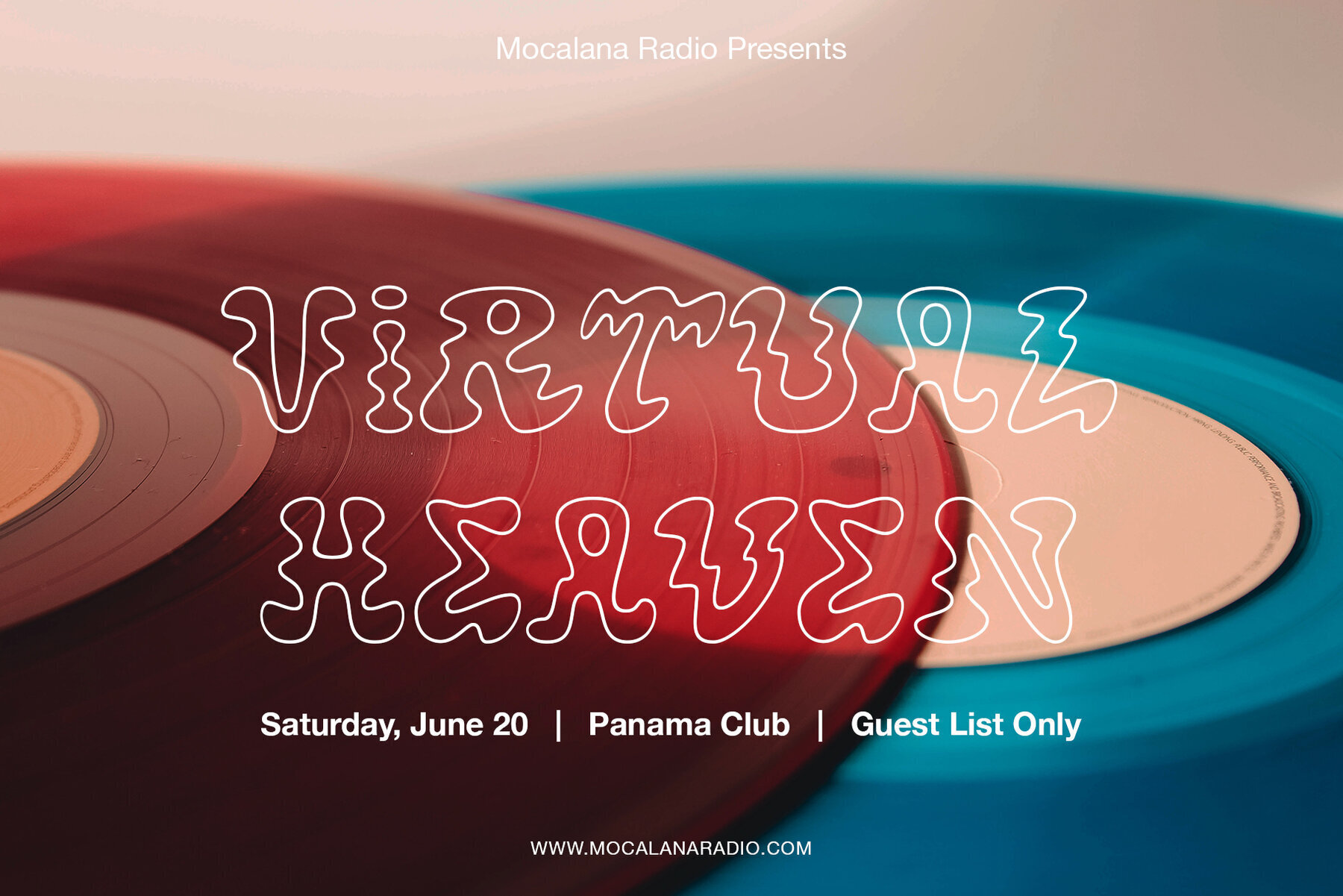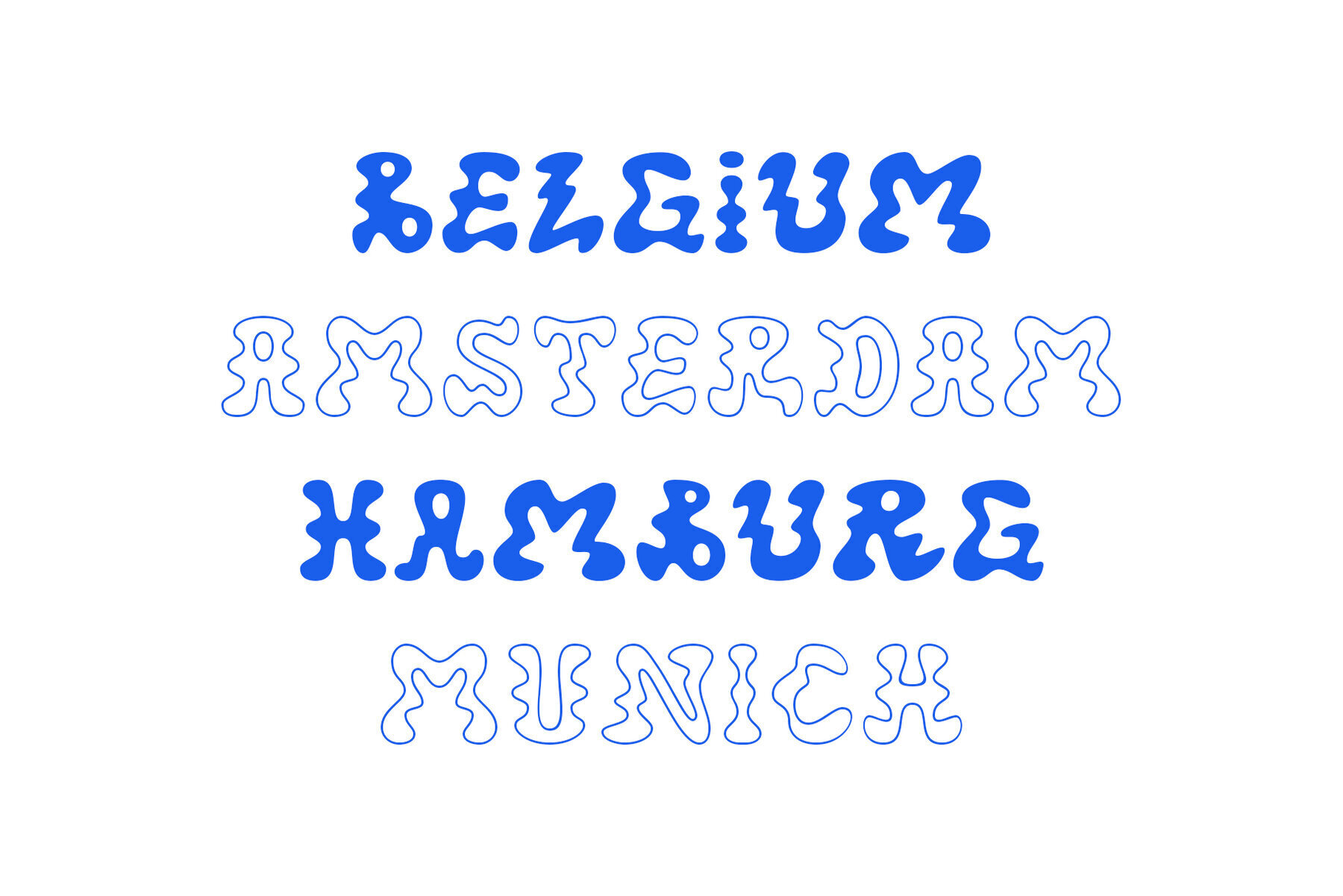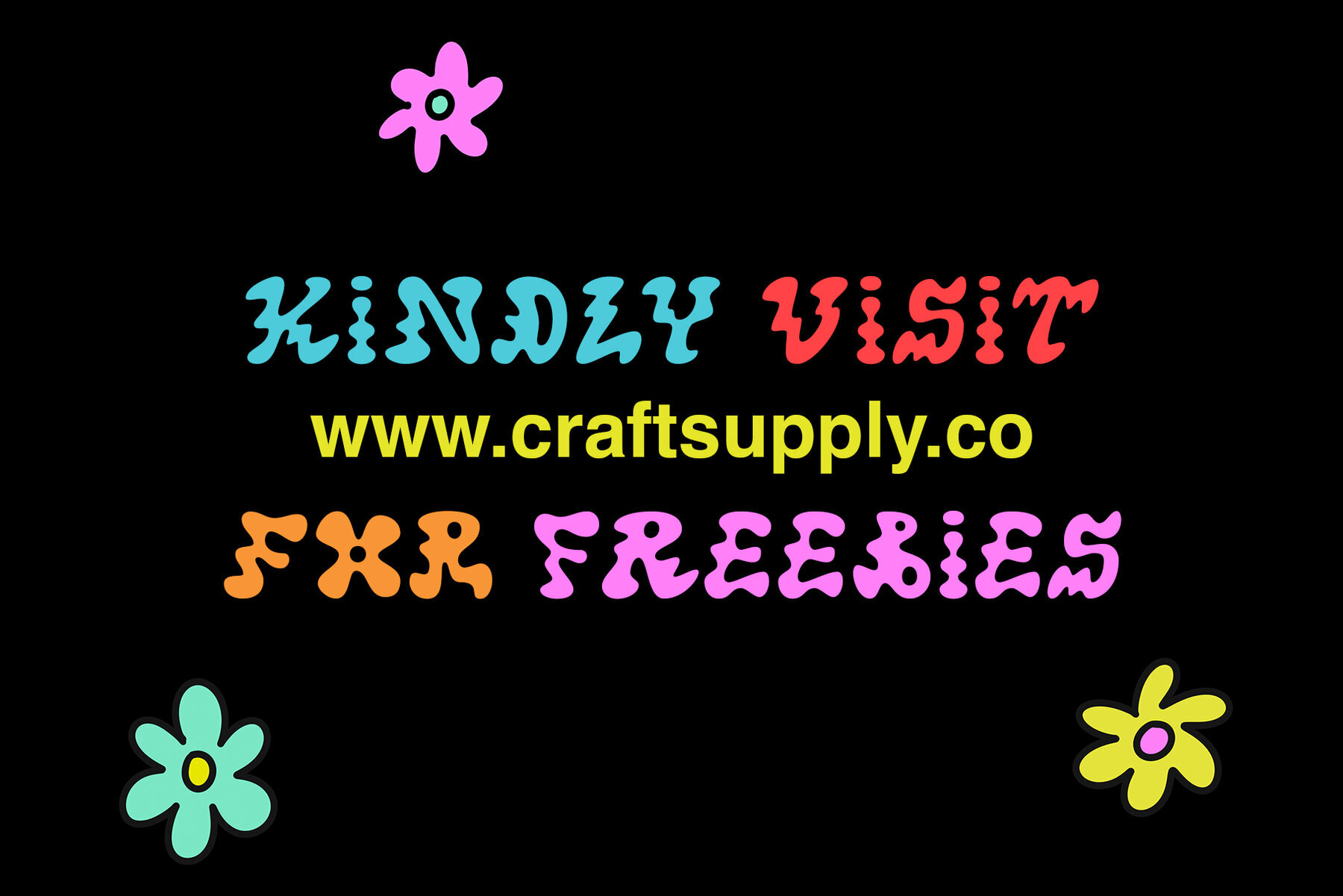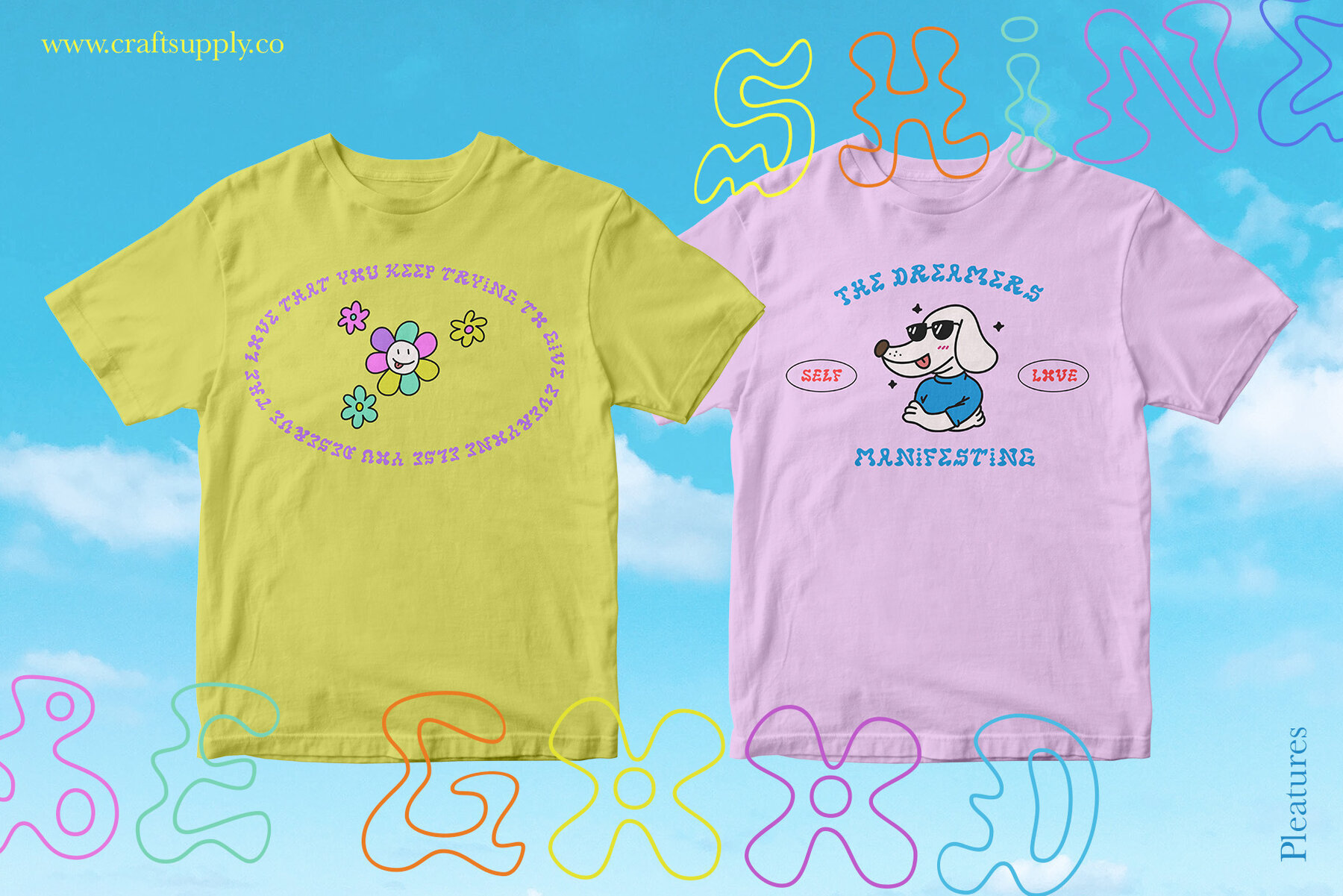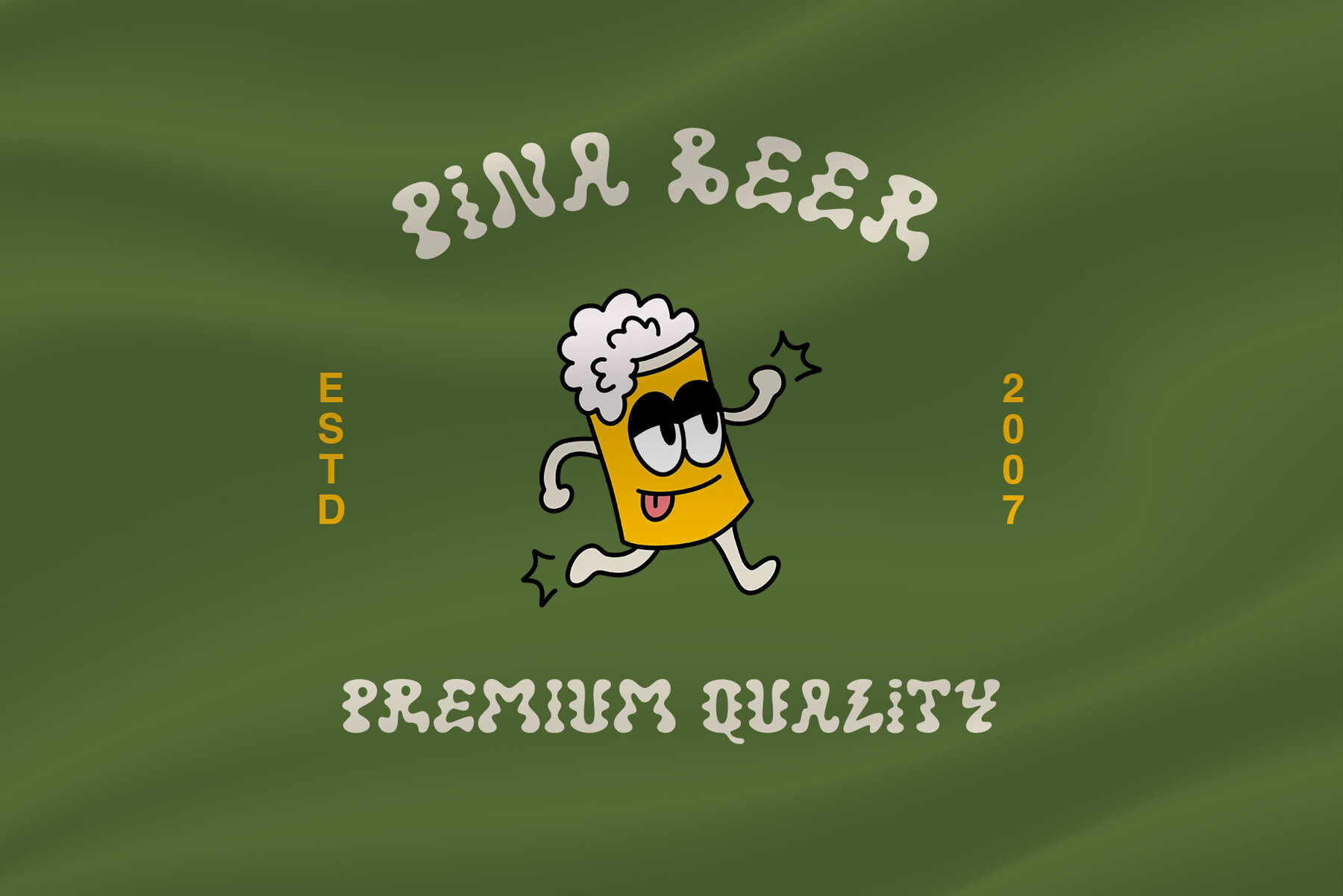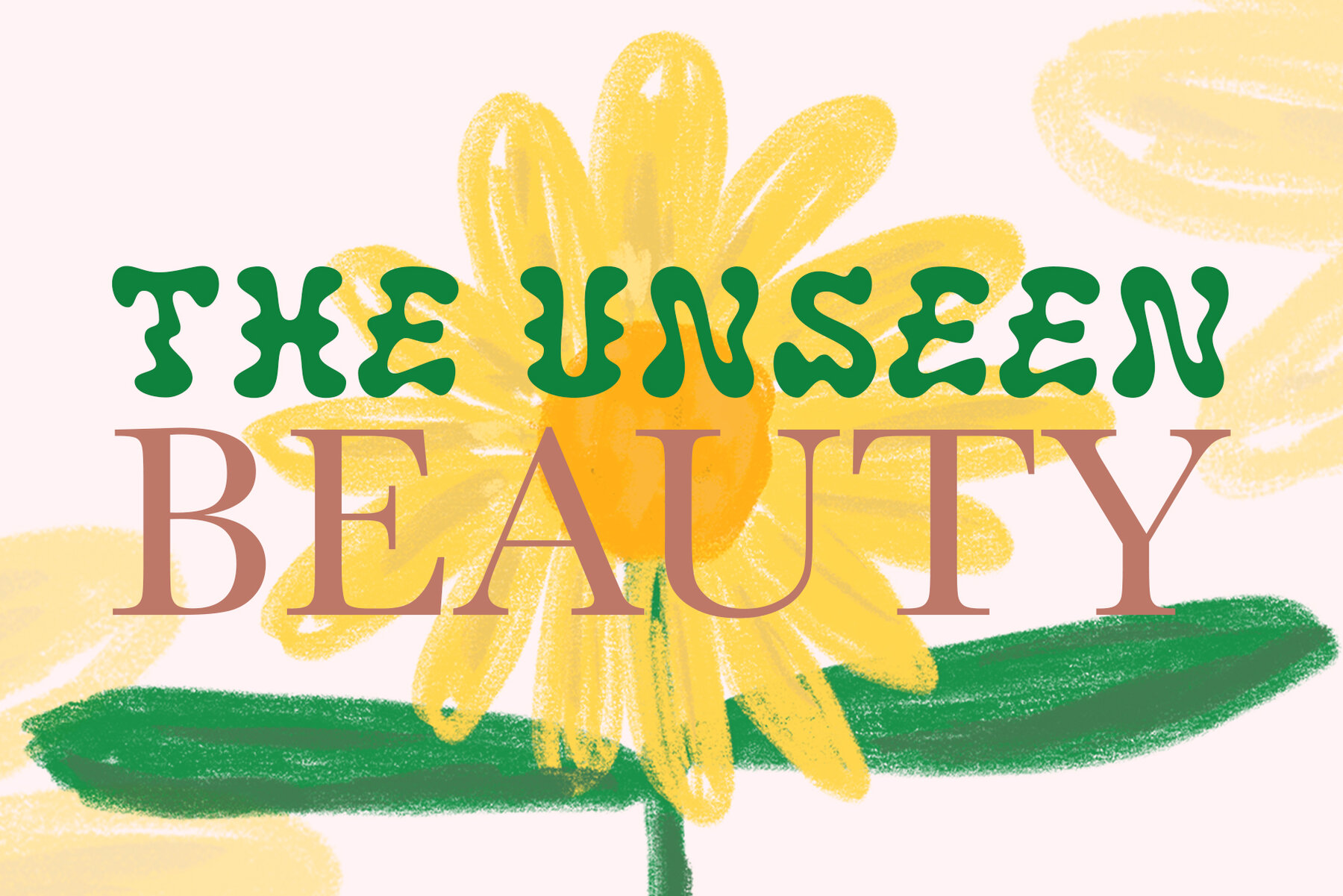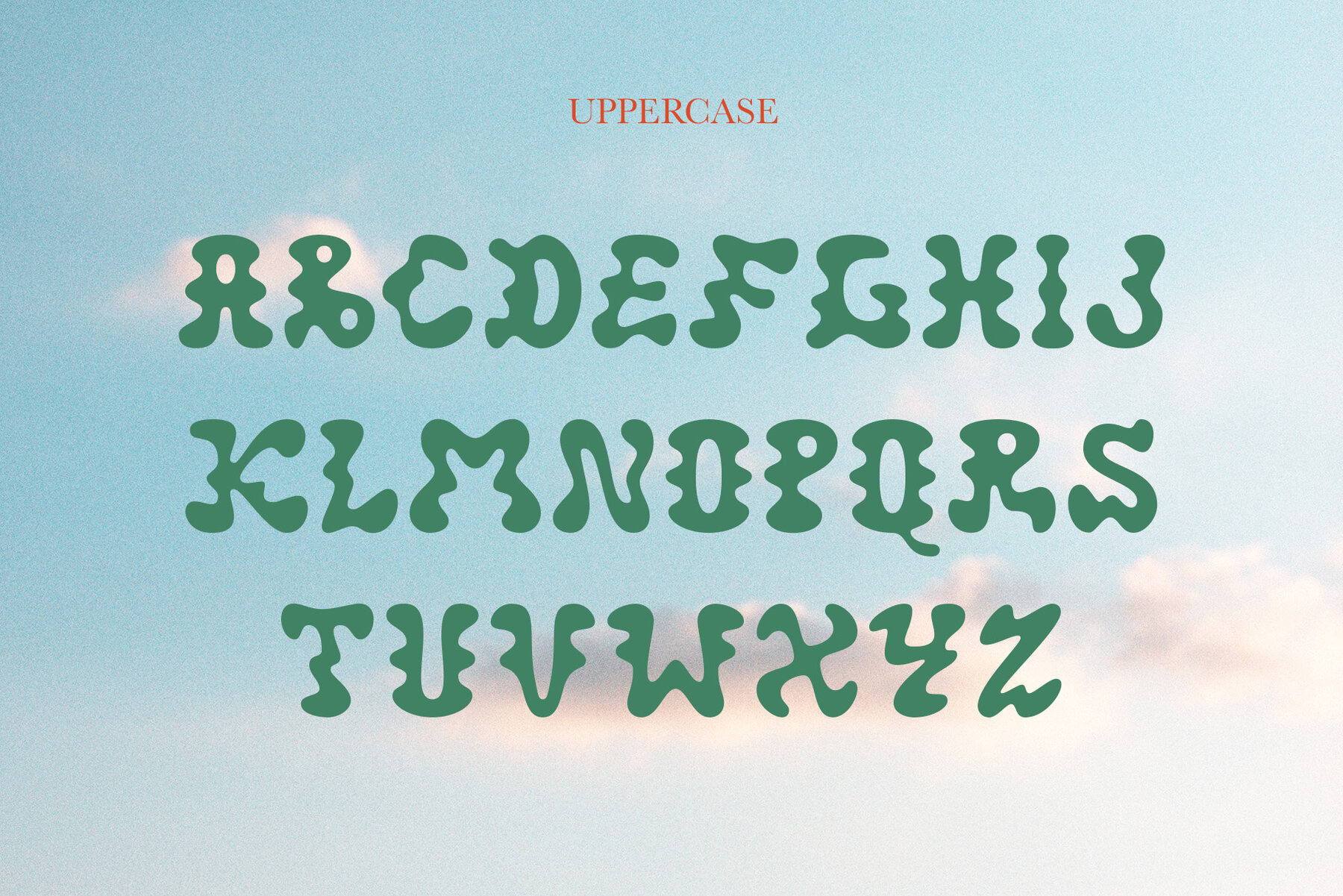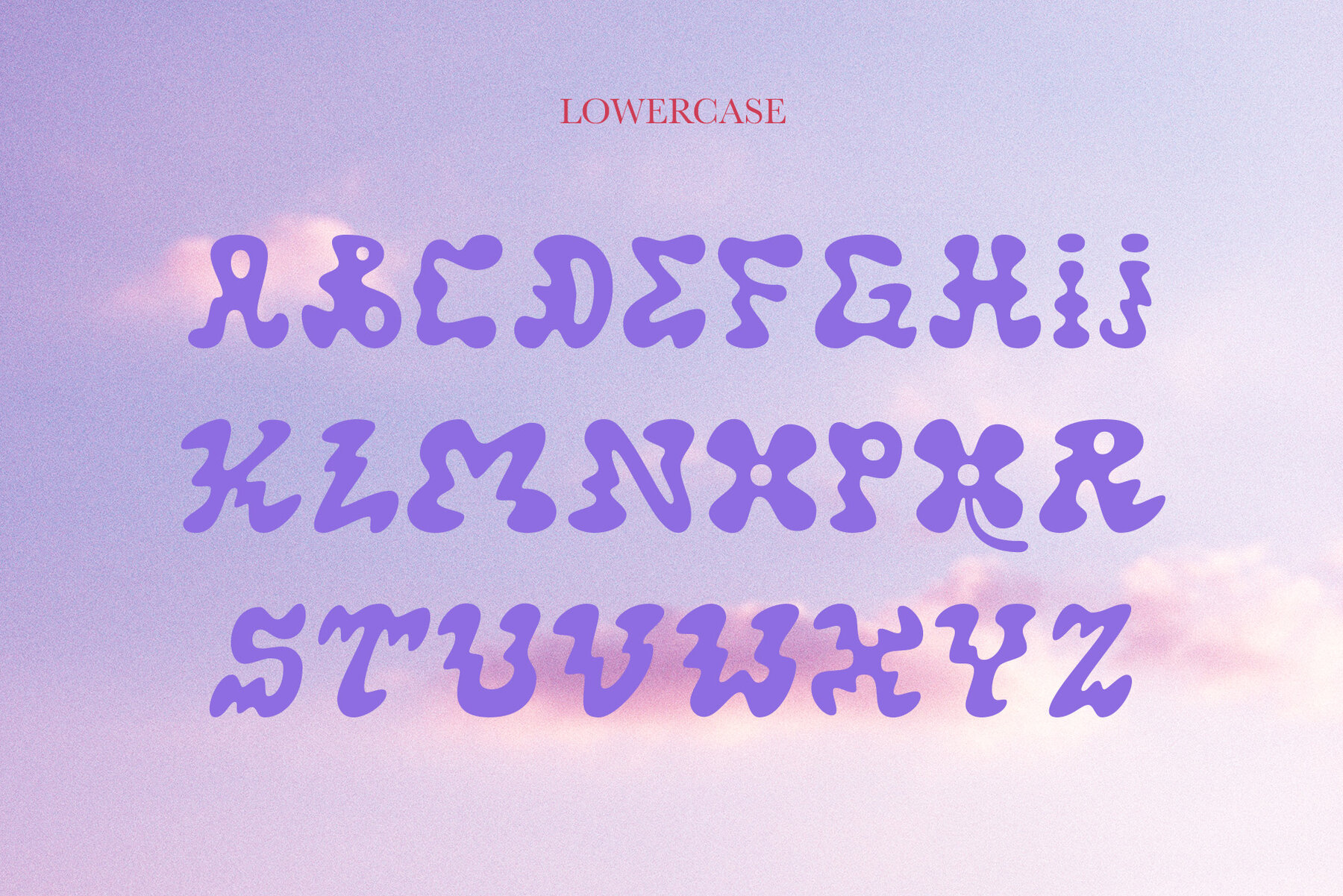
Pleatures Font
Pleatures is a psychedelic typeface with riotous shape that great to make your design vibing. It can be used to create almost all types of design projects like print materials. Just use your imagination and your project will become more alive and look great than ever with this typeface.
You want to make a greeting card or a package design, or even a brand identity, craft design, any DIY project, book title, wedding font, pop vintage design, retro design or any purpose to make your art / design project look pretty and trendy? Feel free to play with this typeface!